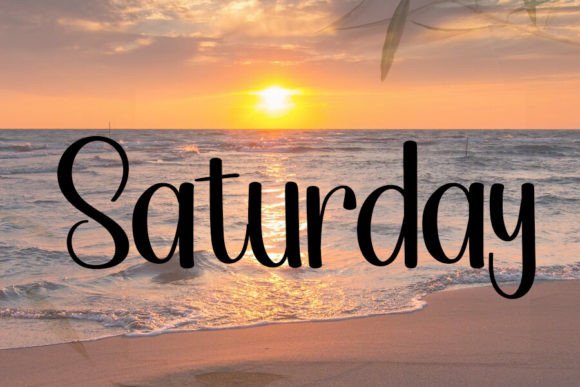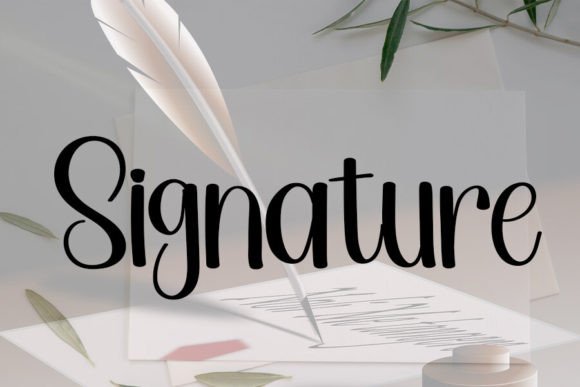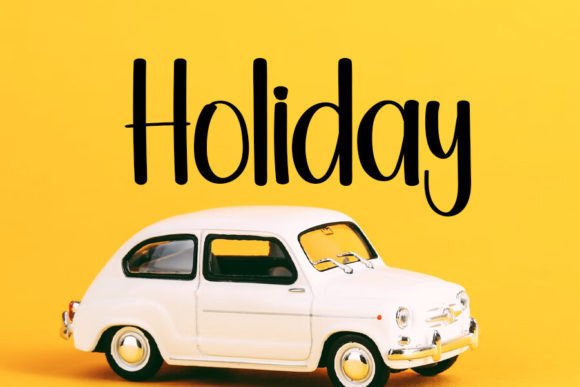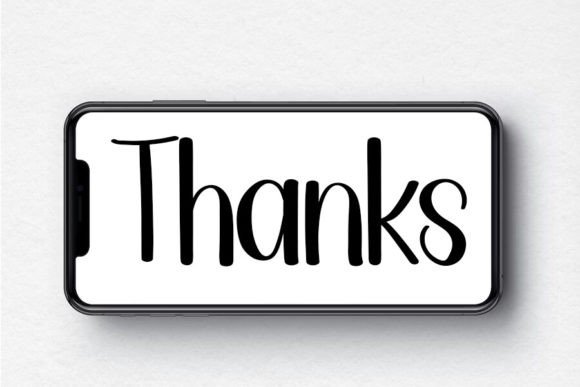
Introducing Handmade Font: The Sweet and Friendly Handwritten Font for Your Creative Projects
Are you a designer, crafter, or DIY enthusiast looking for a font that can add a personal touch to your projects? Look no further than Handmade Font, a sweet and friendly handwritten font that’s perfect for a wide range of designs. With its natural and unique style, Handmade Font is incredibly versatile and can be used in various creative projects, from branding and packaging to scrapbooking and journaling.
The Charm of Handmade Font
Handmade Font is a beautifully crafted handwritten font that’s designed to evoke a sense of warmth and friendliness. Its natural, imperfect strokes and subtle variations in letter size and spacing give it a charming, homemade feel that’s perfect for creating unique and eye-catching designs. Whether you’re looking to create a logo, a poster, or a social media graphic, Handmade Font is sure to add a touch of personality and whimsy to your project.
What Makes Handmade Font So Versatile?
So, what makes Handmade Font so versatile? For starters, its neutral tone and lack of bold or bright colors make it easy to pair with a wide range of design elements, from bold graphics to delicate illustrations. Additionally, its clear and legible lettering makes it perfect for use in body text, headings, and titles. Whether you’re creating a design for a client or working on a personal project, Handmade Font is a great choice because it’s easy to read and understand.
Ideas for Using Handmade Font in Your Designs
So, how can you use Handmade Font in your designs? Here are a few ideas to get you started:
- Branding and Packaging: Use Handmade Font to create custom labels, packaging, and branding materials that add a personal touch to your products.
- Scrapbooking and Journaling: Add a touch of personality to your scrapbook pages and journal entries with Handmade Font.
- Social Media Graphics: Use Handmade Font to create eye-catching social media graphics, such as quote graphics, announcements, and promotions.
- Posters and Flyers: Create bold and eye-catching posters and flyers with Handmade Font.
Tips for Getting the Most Out of Handmade Font
Here are a few tips for getting the most out of Handmade Font:
- Experiment with Colors: Handmade Font looks great in a variety of colors, so don’t be afraid to experiment and find the perfect hue for your design.
- Mix and Match: Combine Handmade Font with other design elements, such as graphics and illustrations, to create a unique and eye-catching design.
- Play with Size: Handmade Font looks great in a variety of sizes, from large headings to small body text.
In conclusion, Handmade Font is a sweet and friendly handwritten font that’s perfect for designers, crafters, and DIY enthusiasts looking to add a personal touch to their projects. With its natural and unique style, Handmade Font is incredibly versatile and can be used in a wide range of designs. Whether you’re creating a logo, a poster, or a social media graphic, Handmade Font is sure to add a touch of personality and whimsy to your project. So why wait? Download Handmade Font today and start creating your own unique and eye-catching designs!